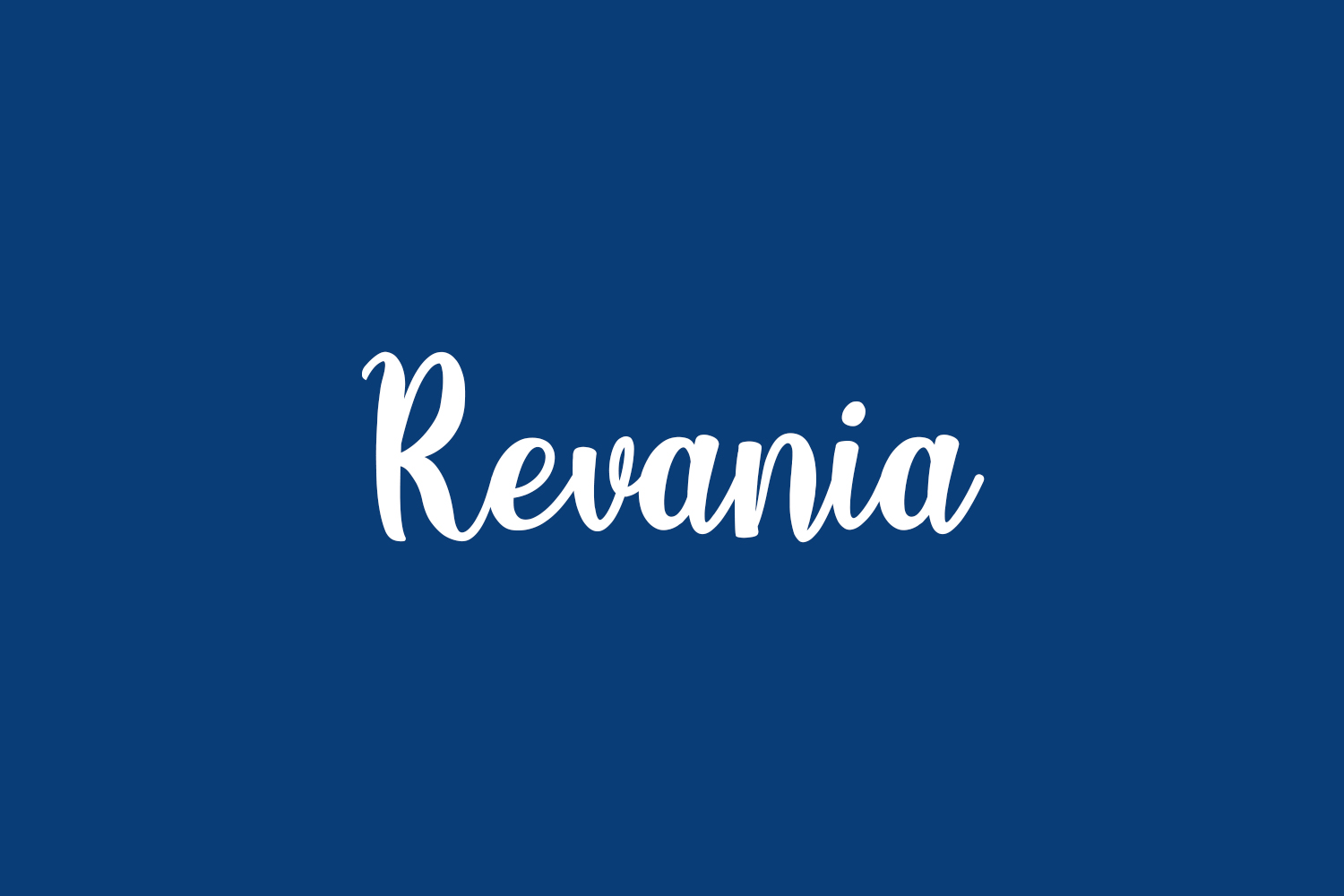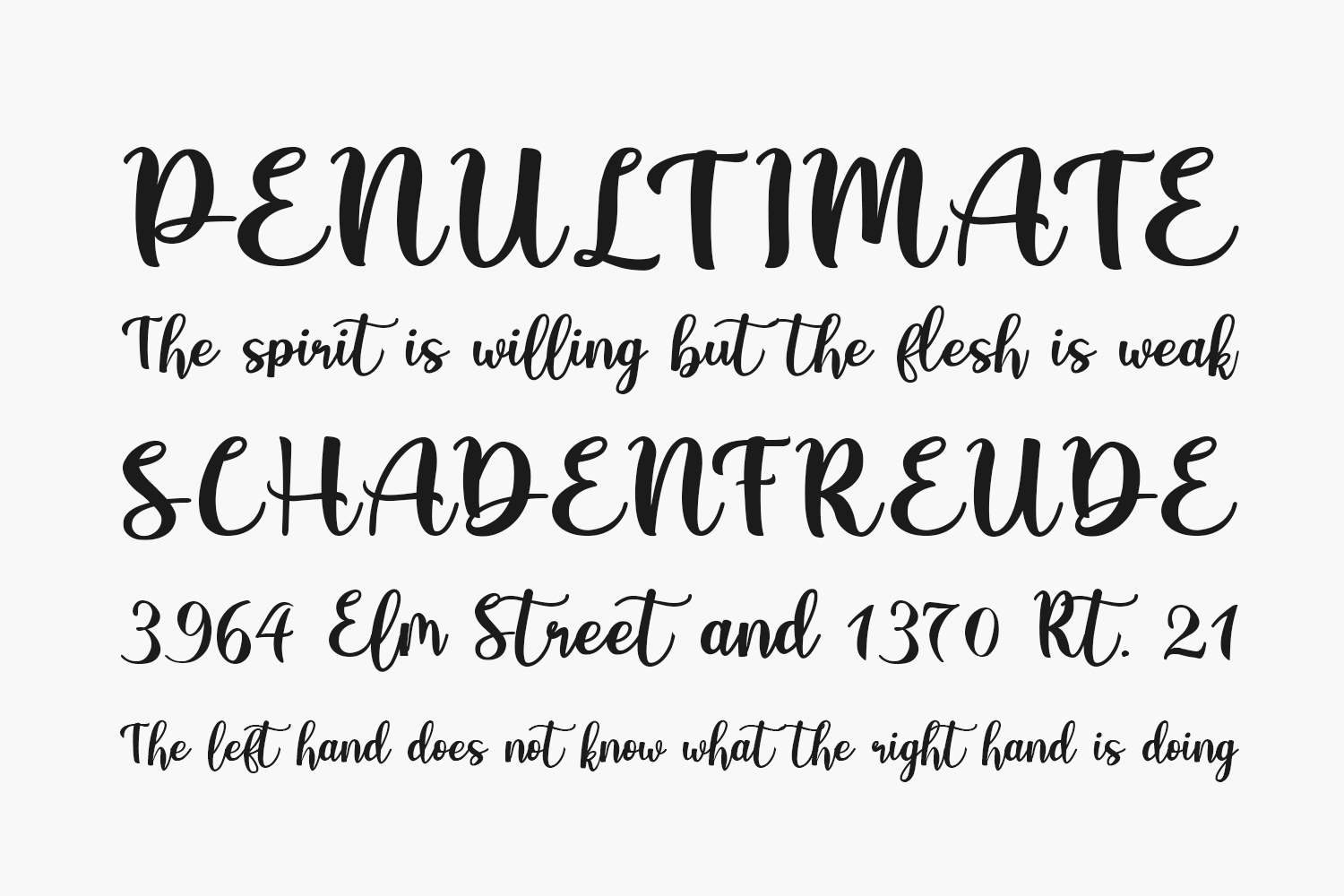
Revania Free Font is a friendly and cute handwritten font. It’s sweet and full of lifestyle making this font a wonderful choice for brightening up your designs. Revania Free Font was designed by Suamzu Art and is free for personal use only. Please purchase the full version for commercial use.